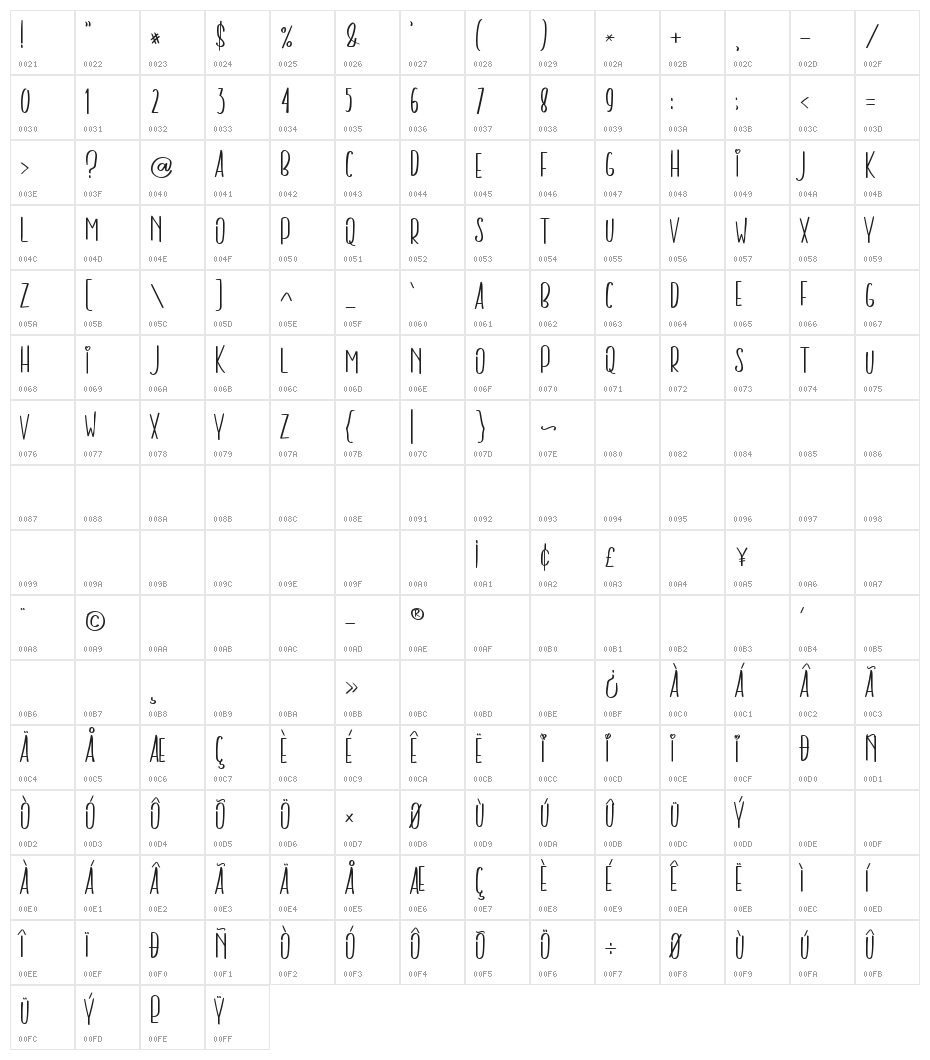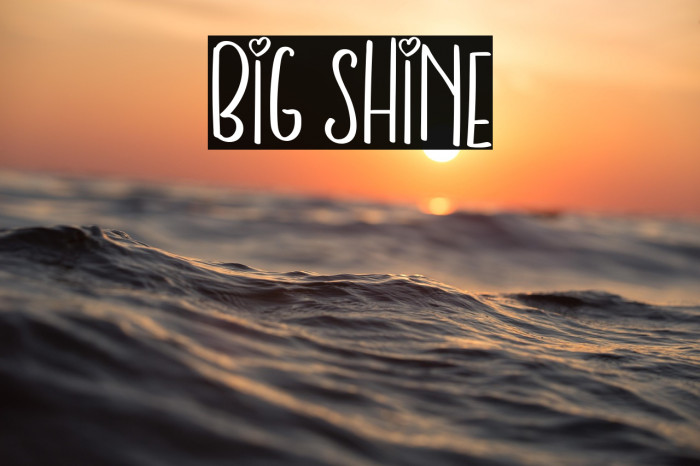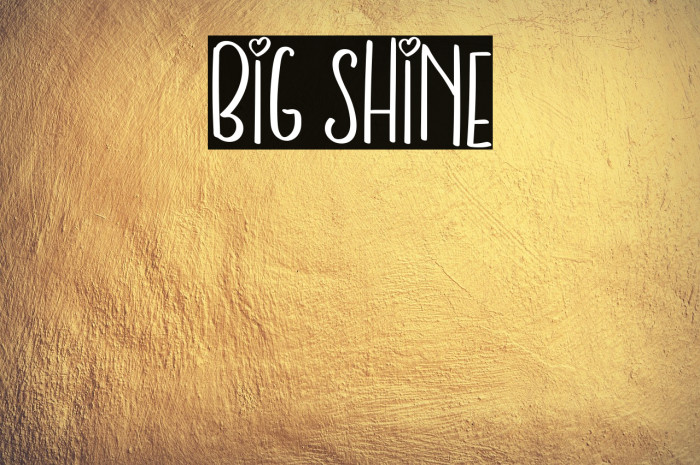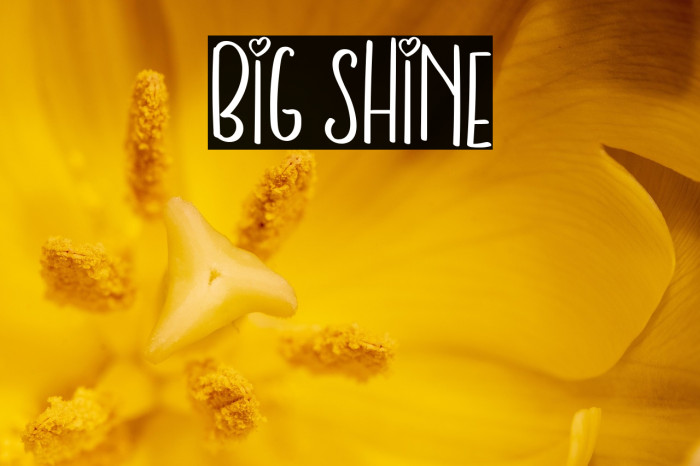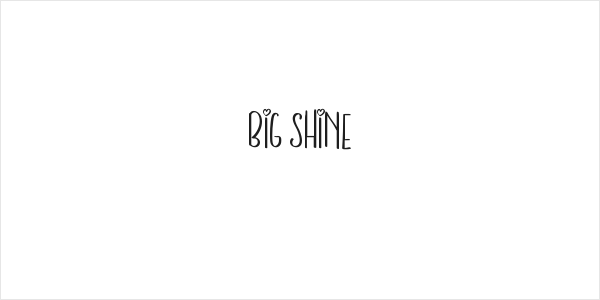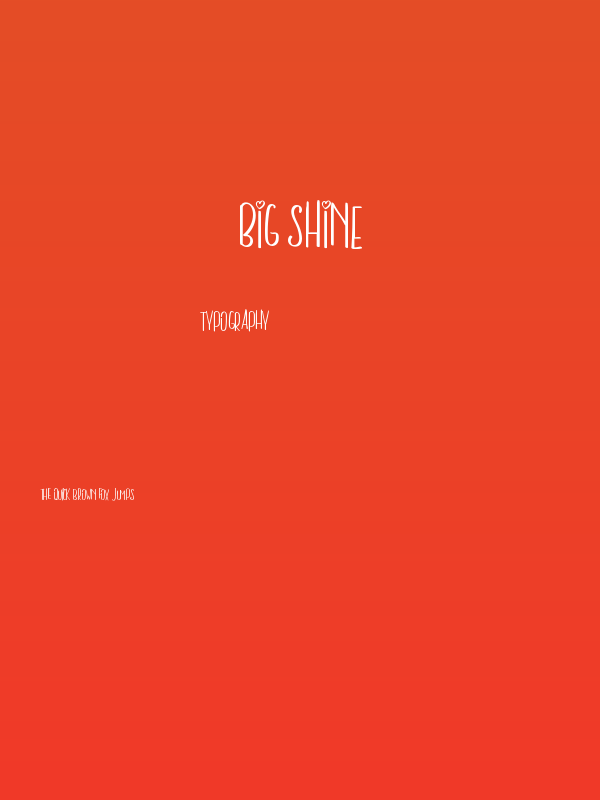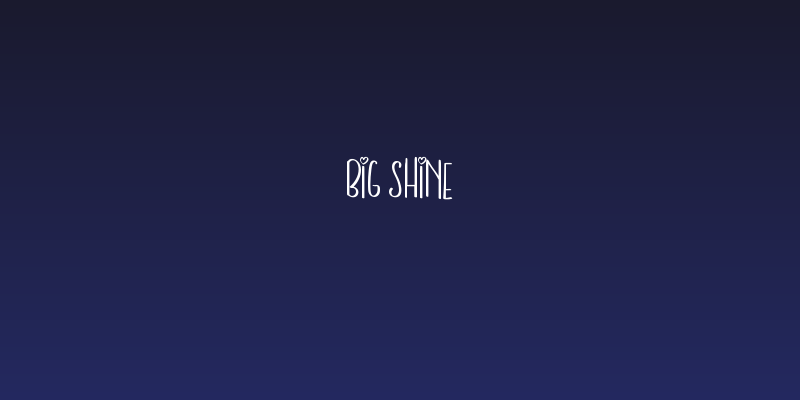
BIG SHINE Font
BIG SHINE Description
This font features a playful and whimsical design, characterized by its tall, narrow letters with a slight slant. The strokes are consistent in width, giving it a clean and modern appearance. Unique elements, such as the heart-shaped dot on the 'i', add a touch of charm and personality. The uppercase and lowercase letters maintain a cohesive style, while the numerals and special characters complement the overall look. This font is ideal for projects that require a fun and engaging aesthetic.
| Proposed Projects | Ideal for greeting cards, children's books, playful branding, and social media graphics. |